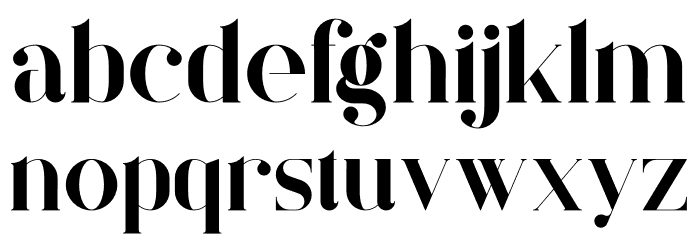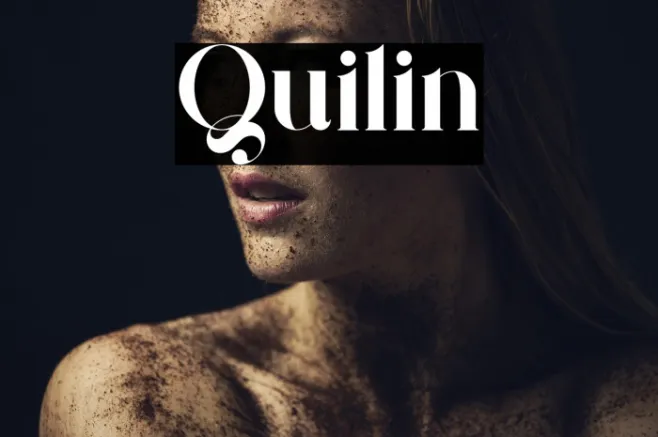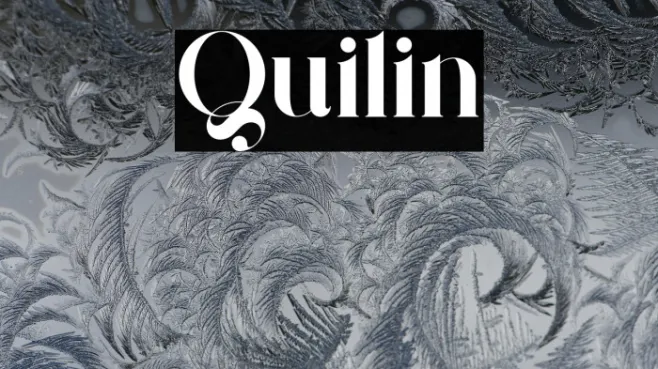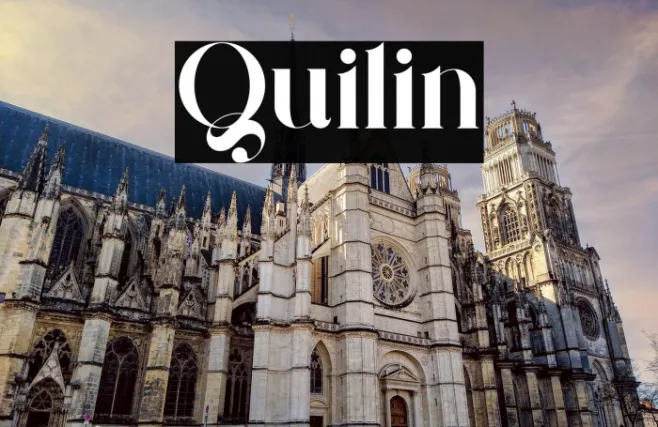
Quilin Font
This font features a striking contrast between thick and thin strokes, creating a dramatic and elegant appearance. The uppercase letters have a tall and narrow form with sharp serifs, while the lowercase letters maintain a consistent style with rounded curves and distinct terminals. The overall design is sophisticated, making it suitable for high-end branding and editorial use. The font's unique character shapes, particularly in letters like 'Q' and 'g', add a touch of modern flair. The absence of special characters suggests a focus on alphabetic and numeric content.
A high-contrast serif font with elegant, dramatic strokes and modern flair.
- Proposed Projects: Ideal for luxury branding, fashion magazines, and editorial headlines.